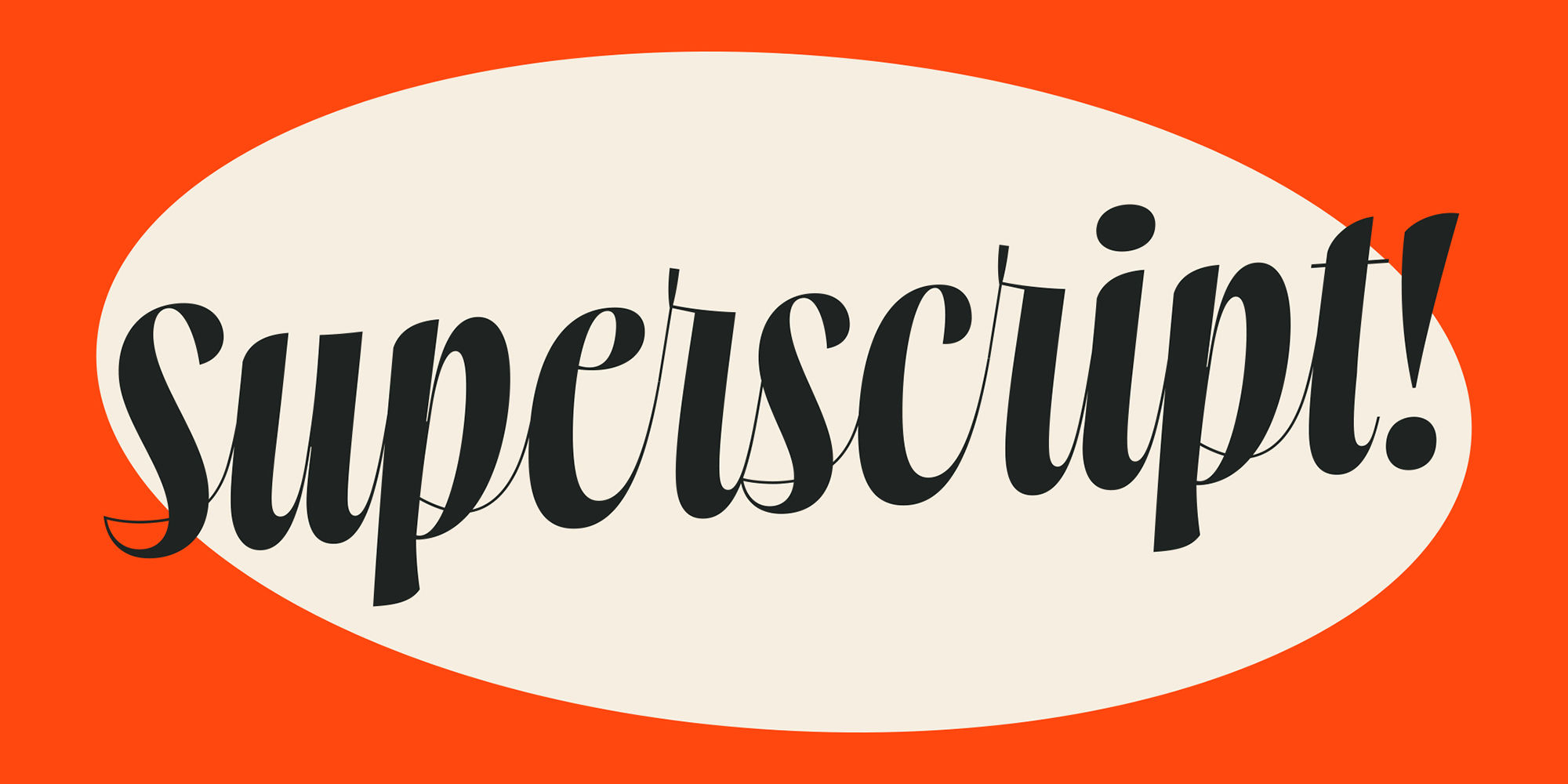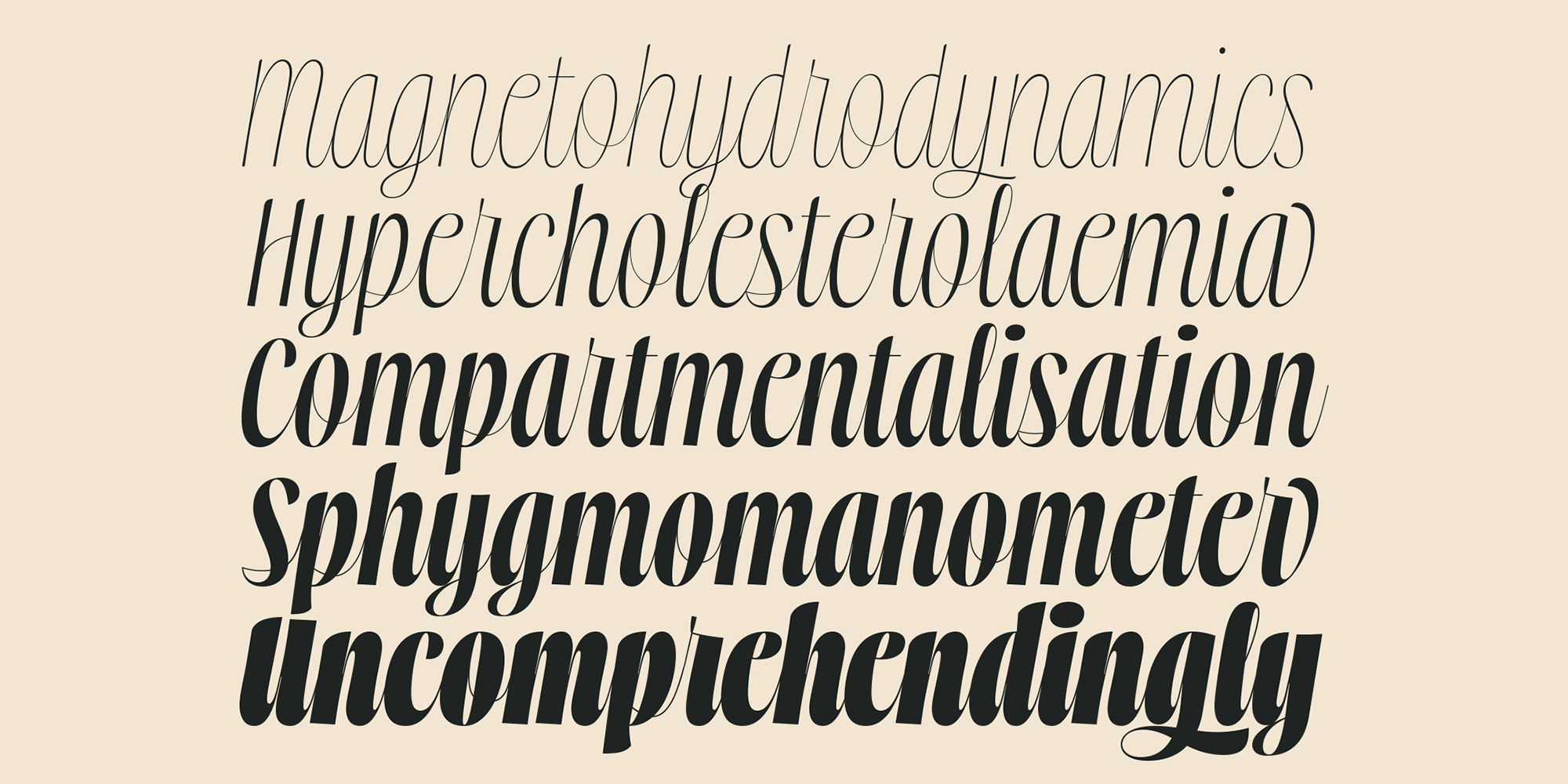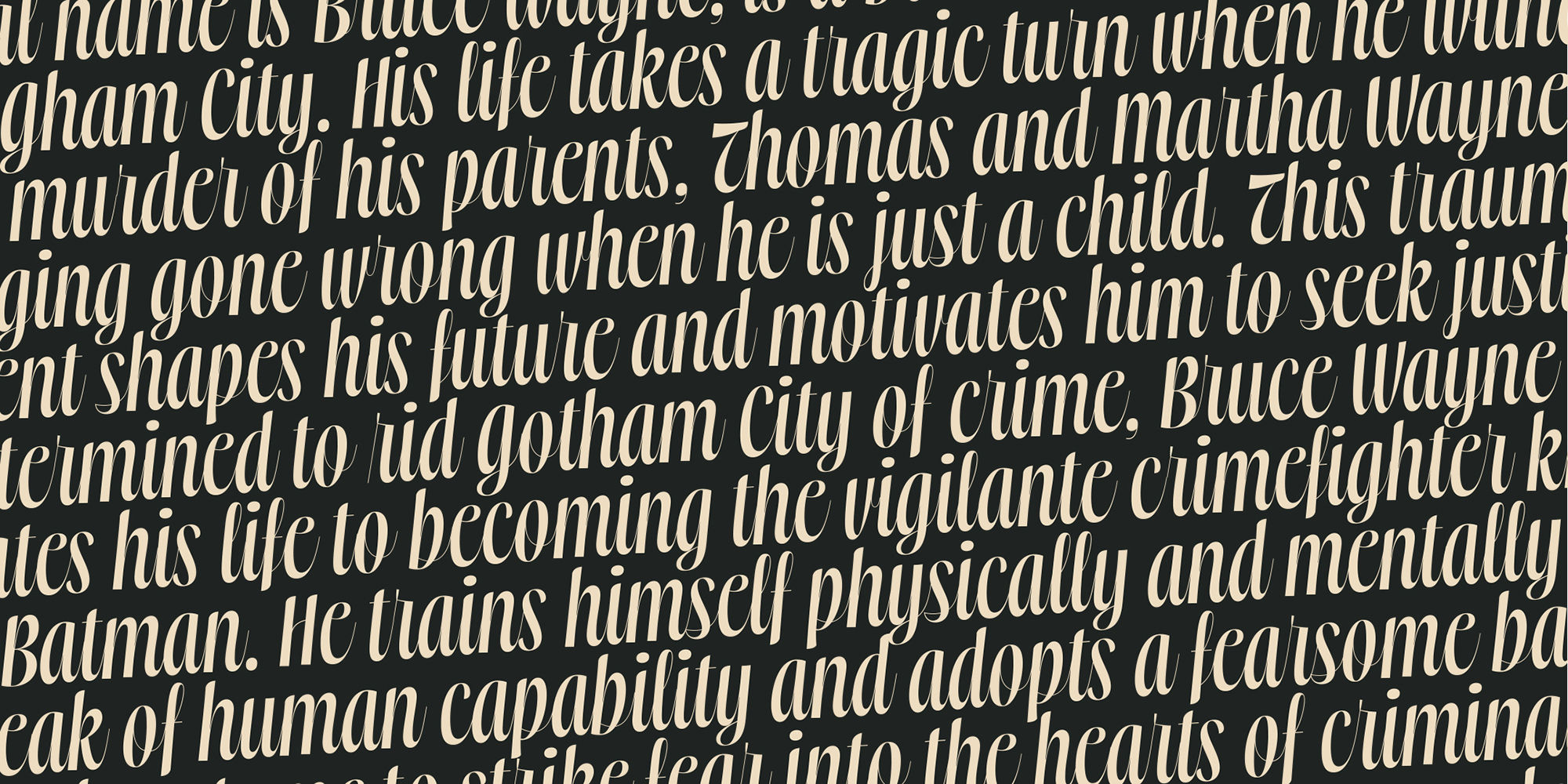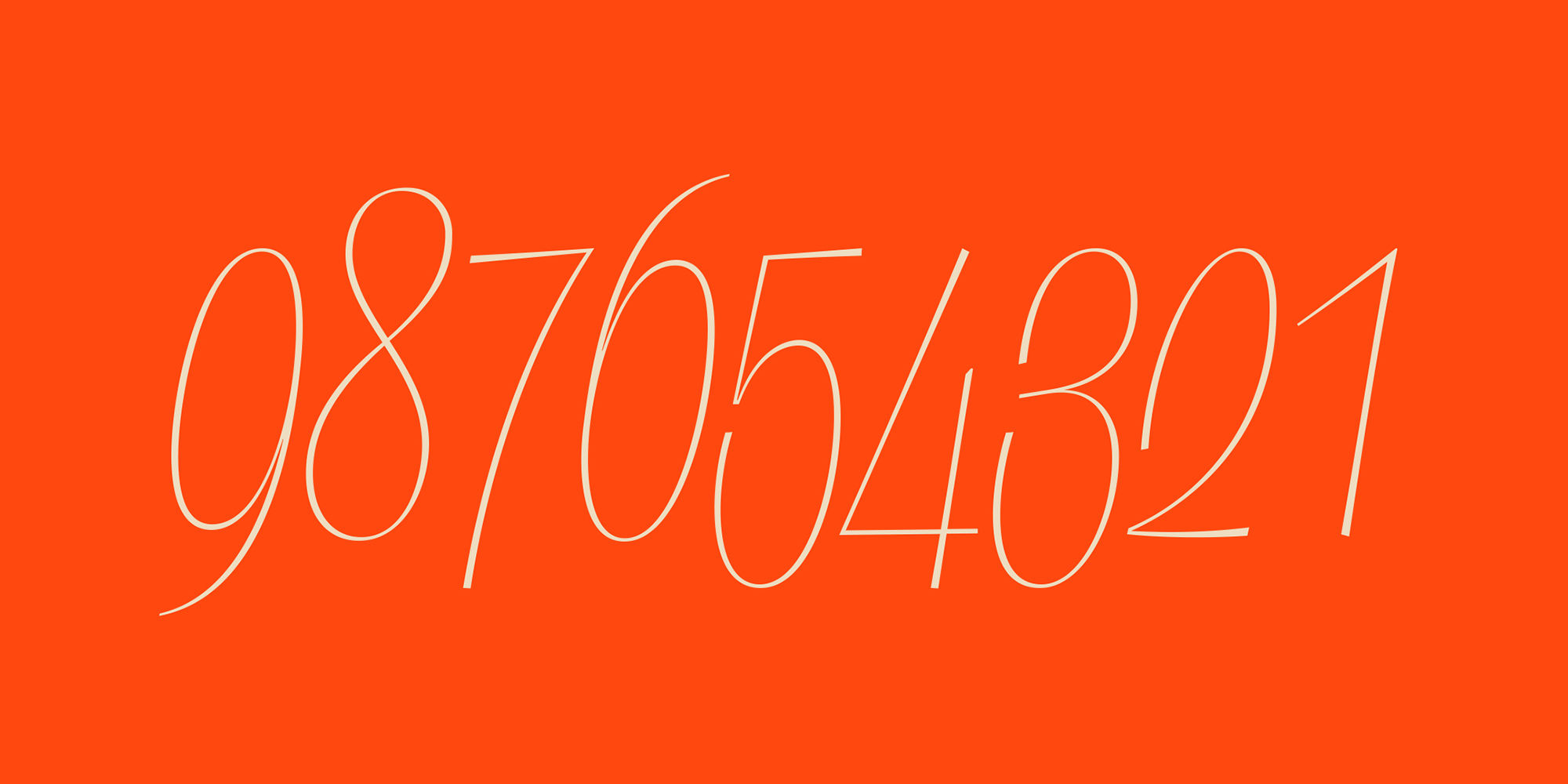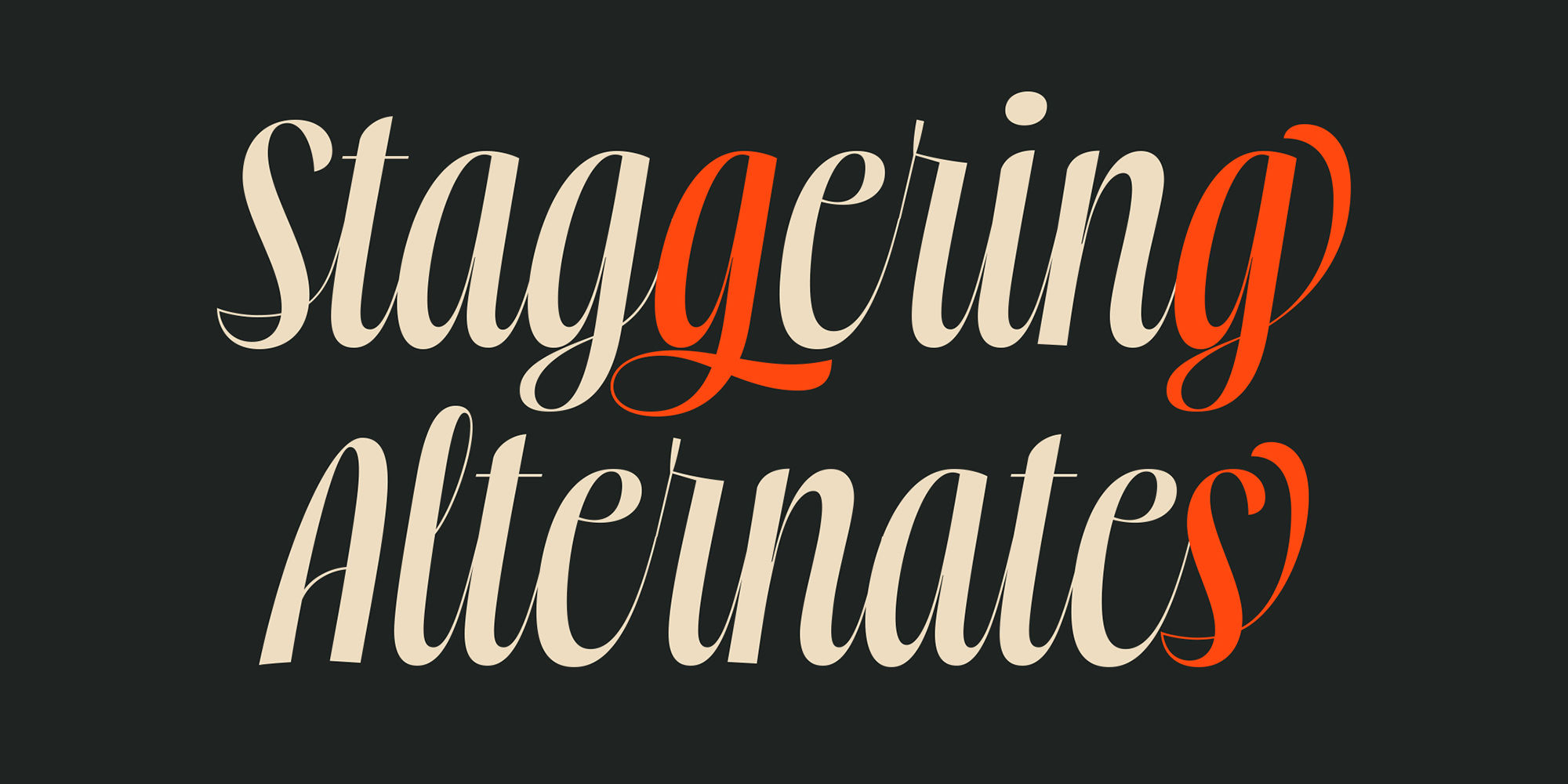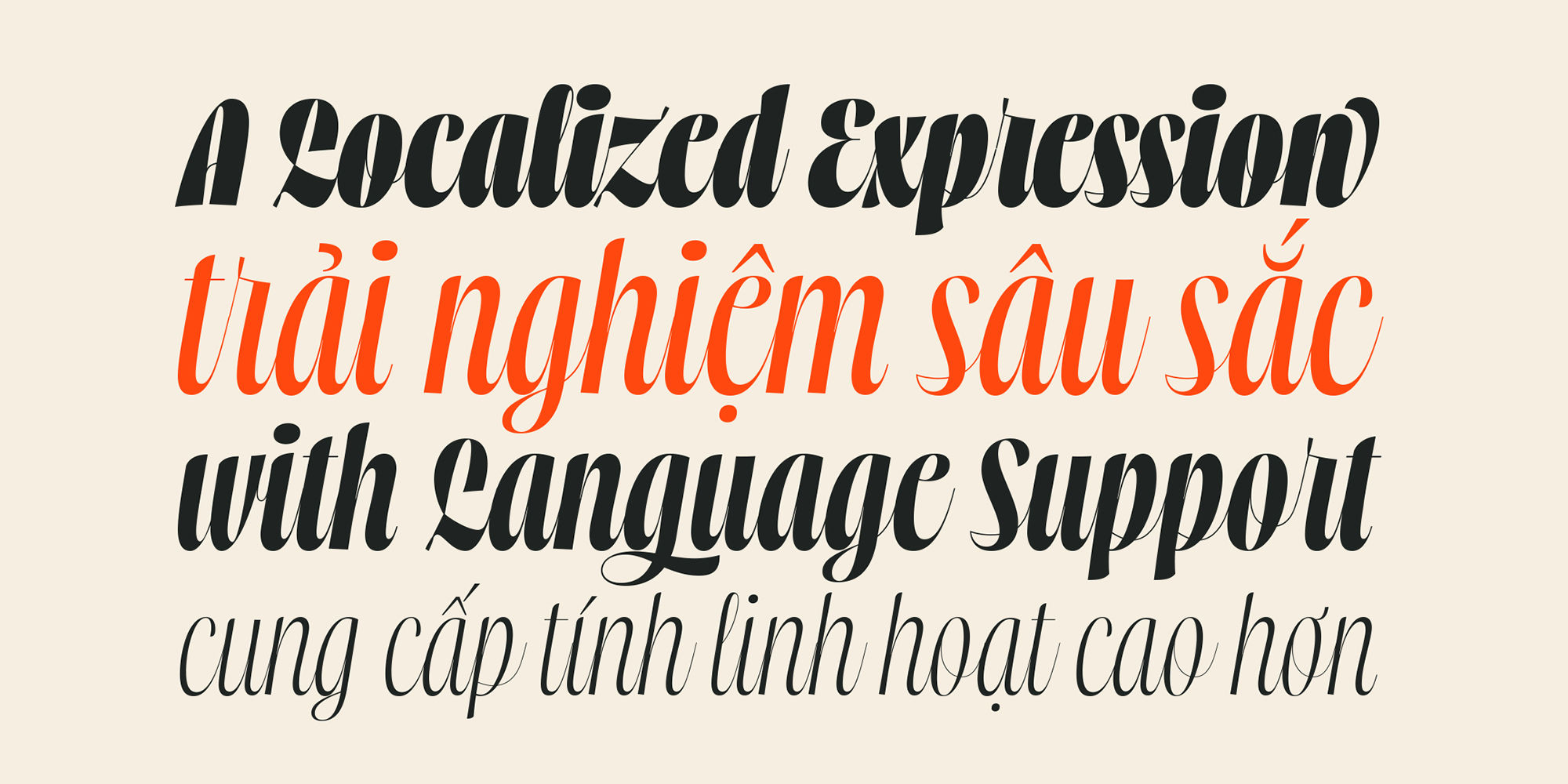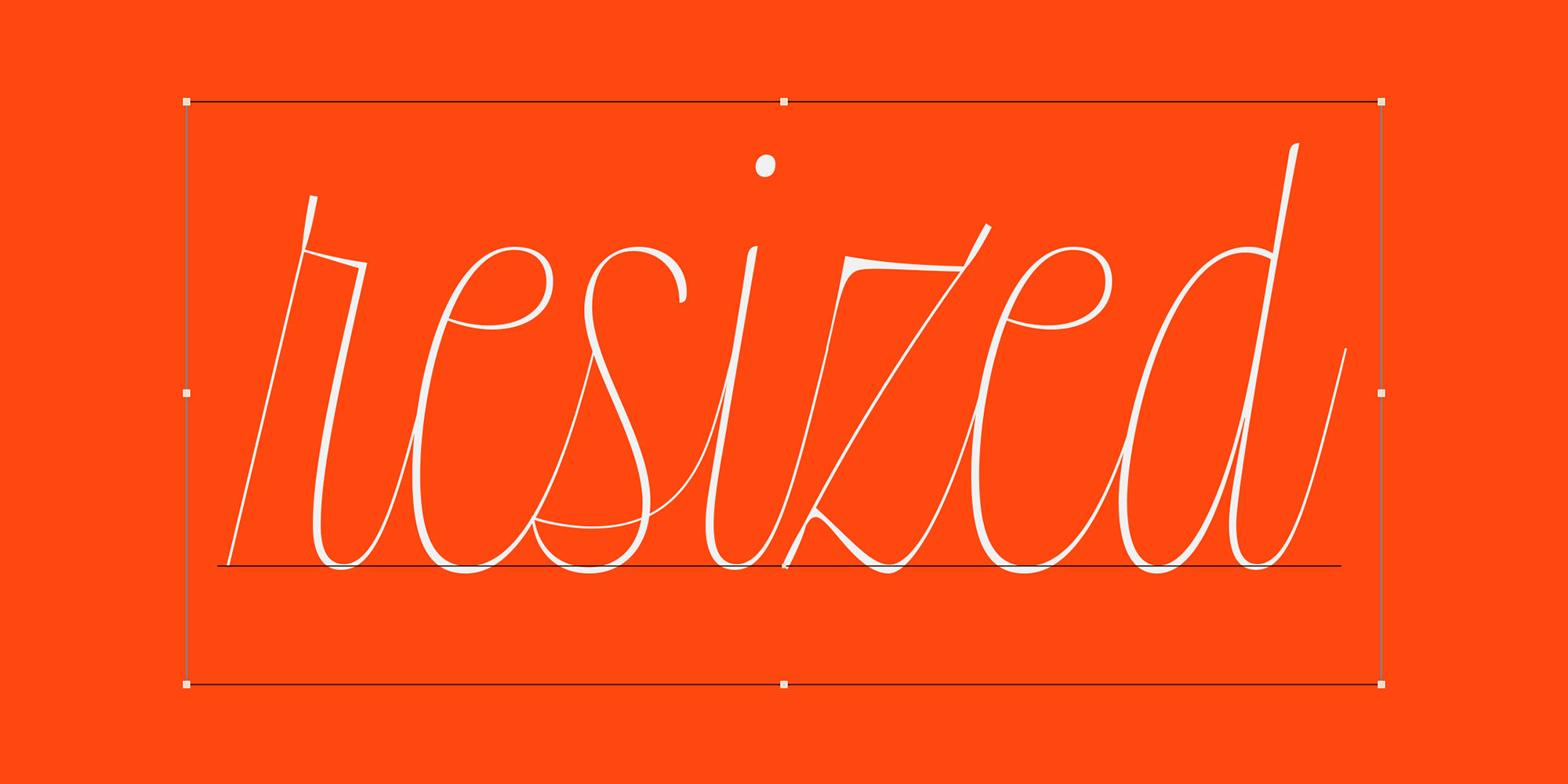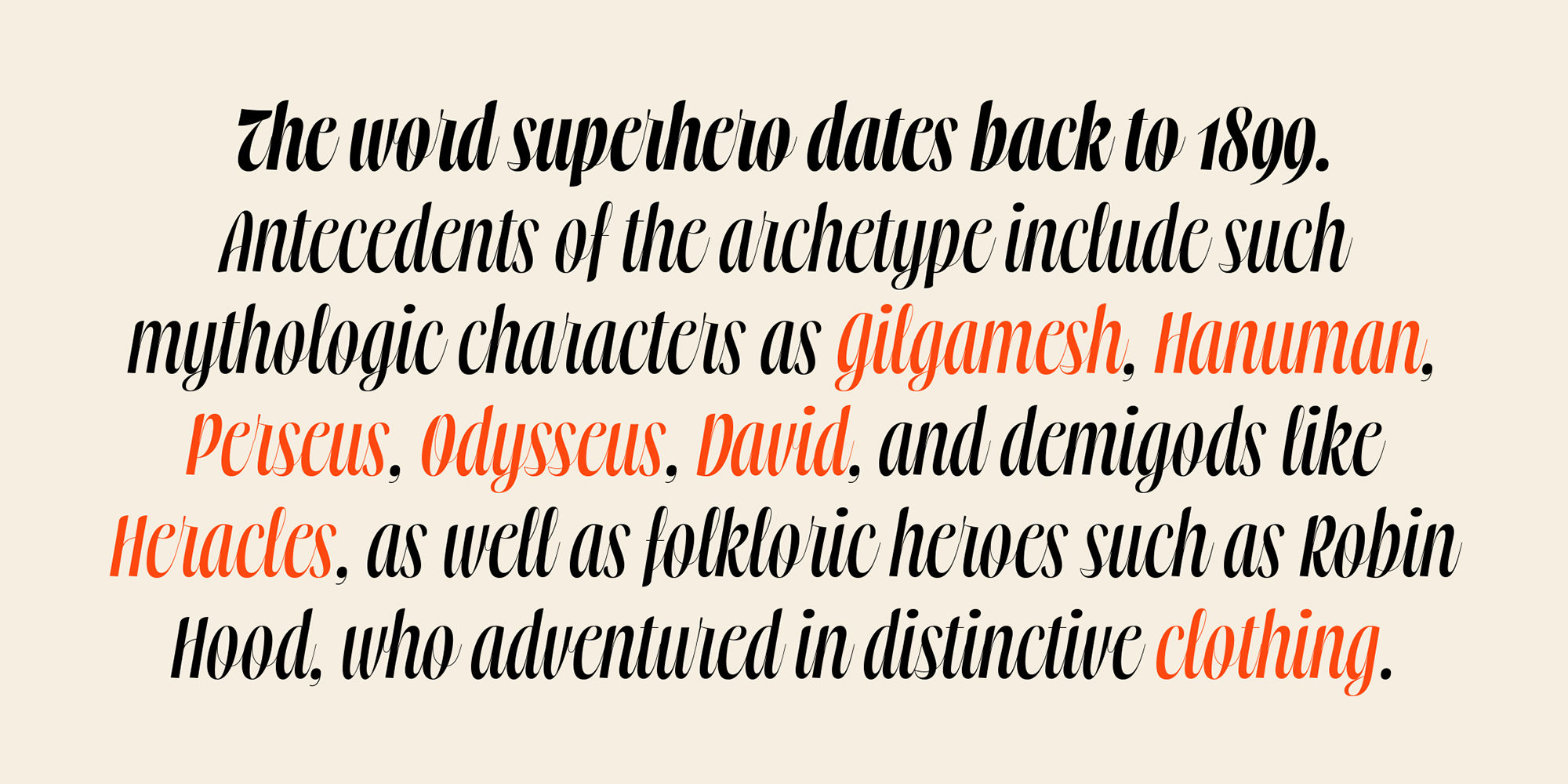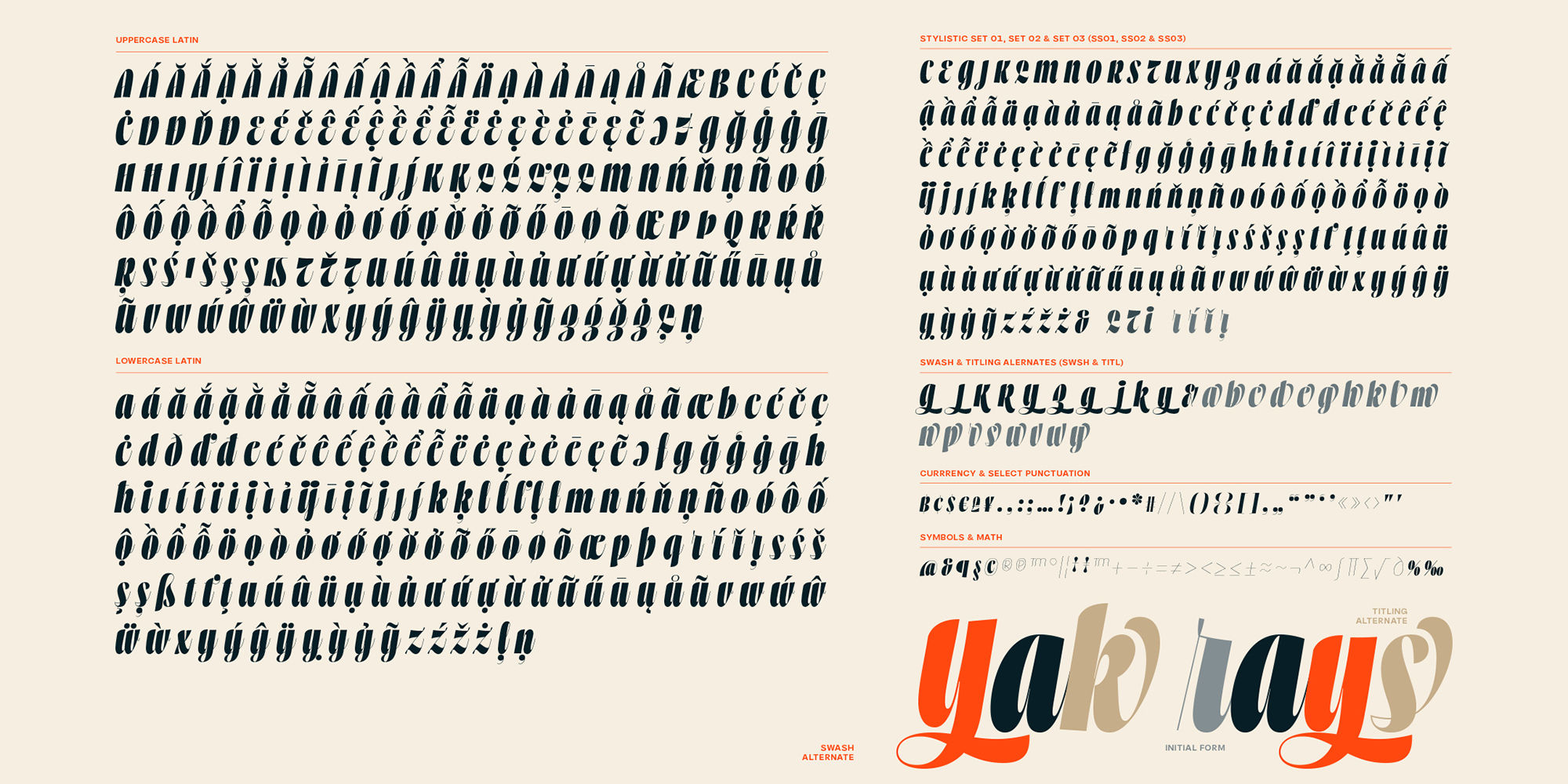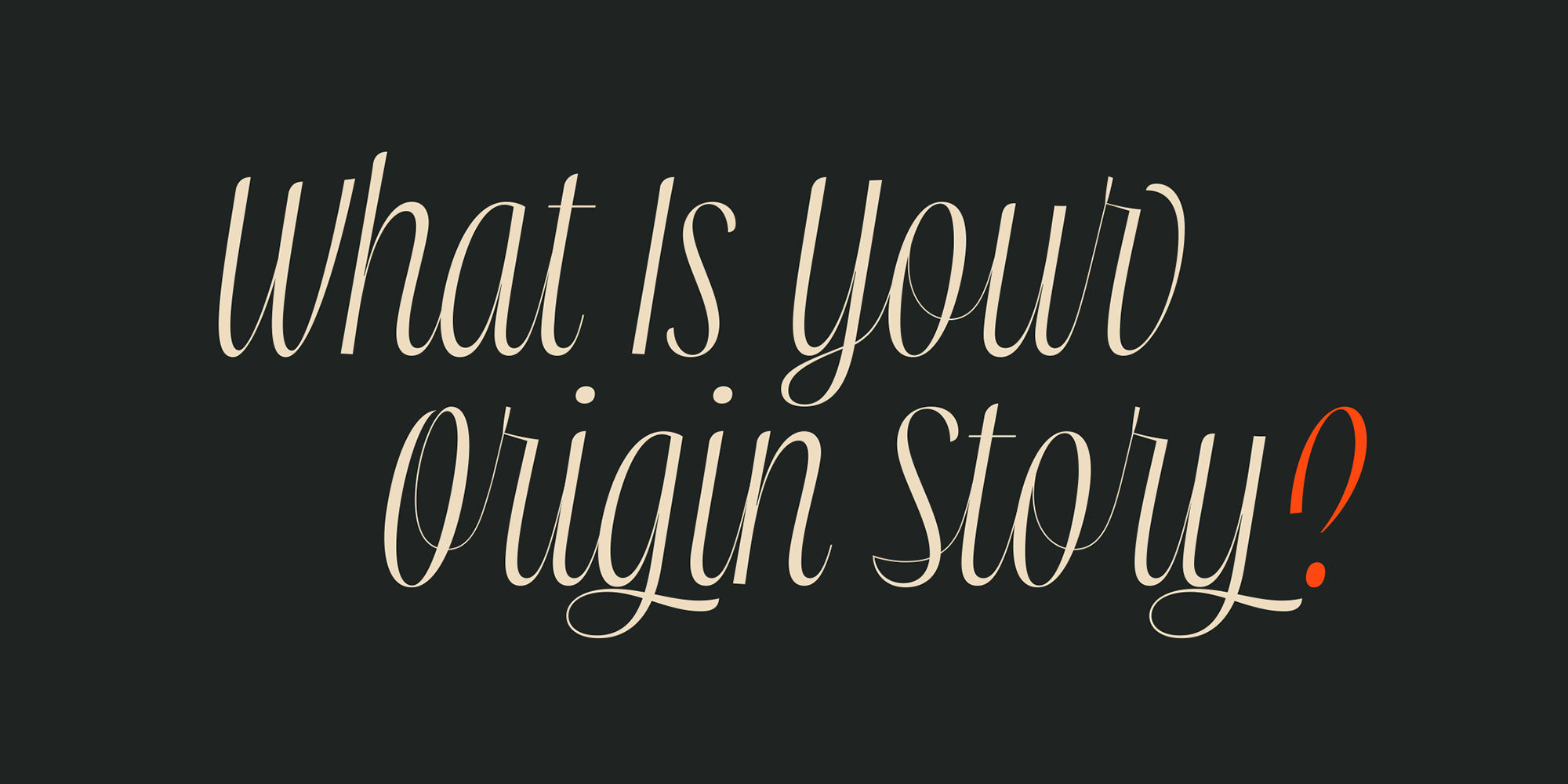
Superscript
Superscript started as a personal challenge... simple as that. I had been doodling in a sketchbook with a sumi brush, focusing on very compressed, high-contrast, connected script letterforms. This type of doodle is usually a warm-up exercise.
Something from a set of exemplars clicked, so it slowly developed, out of whimsy, into the rough parts of a typeface. Then, it sat for two years. After that hiatus, the typeface, still very compressed but highly resolved, gained momentum. The fact that the typeface has multiple weights is Potch Auacherdkul's fault. He commented that it should have a thin weight. Potch is a jerk, but I started drawing, and the two of us completed that additional weight and the subsequent interpolations. He was right. It was totally worth it.